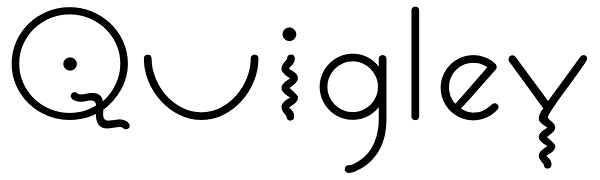
Quigley
At first glance, Quigley might look like any ordinary font. Take a closer look. Quigley is reminiscent of an art deco font with a "twist", having unusual and amusing character shapes. Ideal for signage and as display type, but works nicely for body...